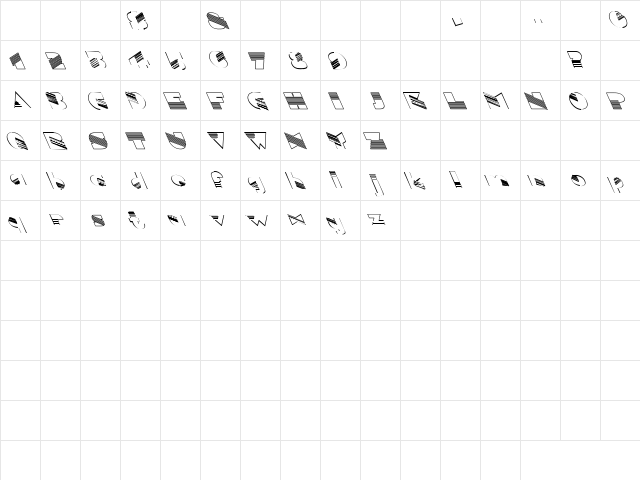
Wither Outline 3 Regular
Design Context for Wither Outline 3 Typeface
Wither Outline 3 is built around its visual character rather than neutral utility — its distinctive forms are designed to make an impression at display sizes.
Font Pairing: Pair with a clean neutral sans-serif for body copy to let Wither Outline 3's character lead without overwhelming the composition.
Pro Tip: Treat Wither Outline 3 as the centrepiece of your typographic hierarchy. One strong heading set in a decorative face can carry an entire layout.